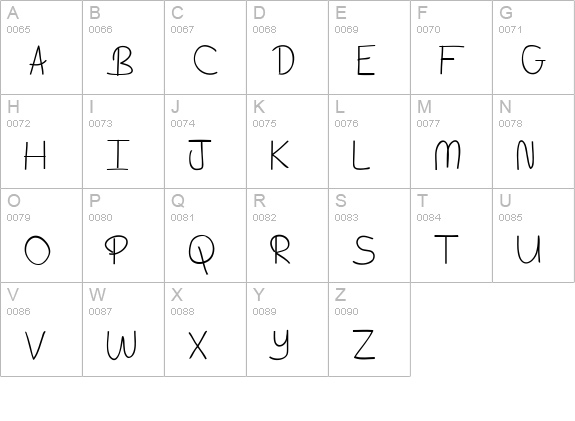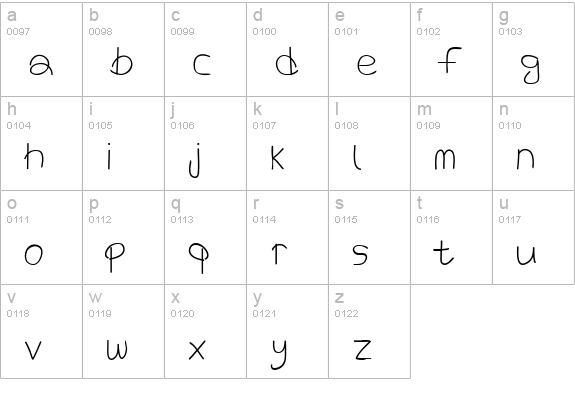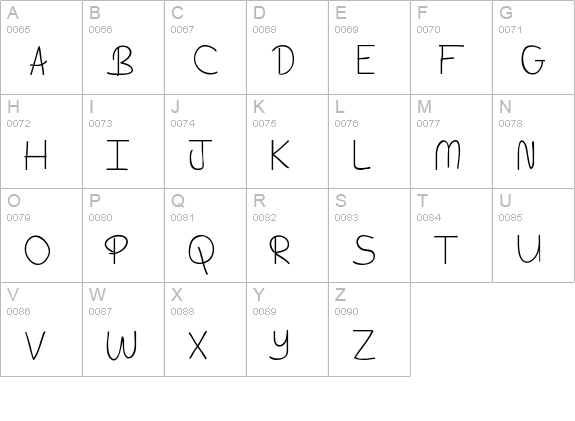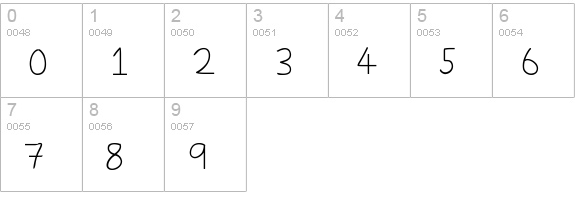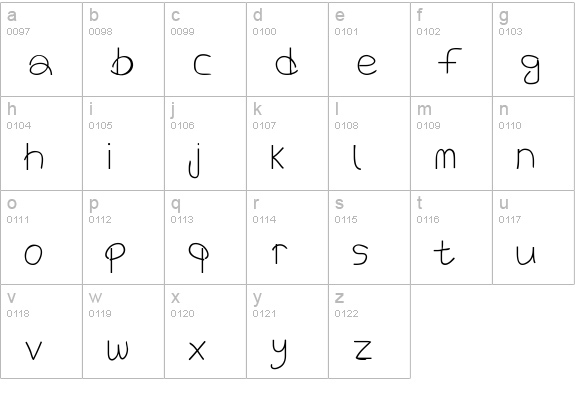
Introducing The Power Of Love font, a beautiful and enchanting typeface that captures the essence of love and spreads its warmth across your designs. This font is a true representation of the power that love holds, with its elegant and flowing curves that effortlessly blend together to create a harmonious visual experience. The Power Of Love font is not just visually appealing, but it also evokes a sense of romance and passion, making it the perfect choice for any project that aims to convey heartfelt emotions. Whether you are designing wedding invitations, love letters, or romantic quotes, this font will add a touch of love and tenderness to your creations. What's even better is that The Power Of Love font is freely available to download at FontsMarket.com. This means that you can easily access this stunning typeface without having to spend a penny. It is our belief that love should be freely shared and celebrated, and this extends to the tools we use to express it. With The Power Of Love font, you have the freedom to let your creativity soar and create designs that are infused with the magic of love. Its versatility allows it to be used in a variety of contexts, whether you are designing for print or web, ensuring that your message of love reaches its intended audience in the most impactful way possible. So, why wait? Download The Power Of Love font today from FontsMarket.com and experience the joy of adding a touch of love to your designs. Let the power of love guide your creativity and watch as your creations resonate with others on a deep and emotional level.